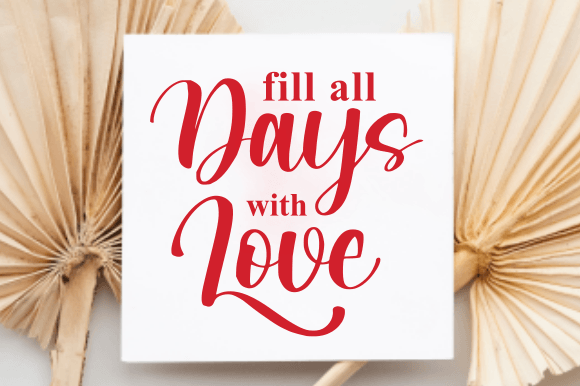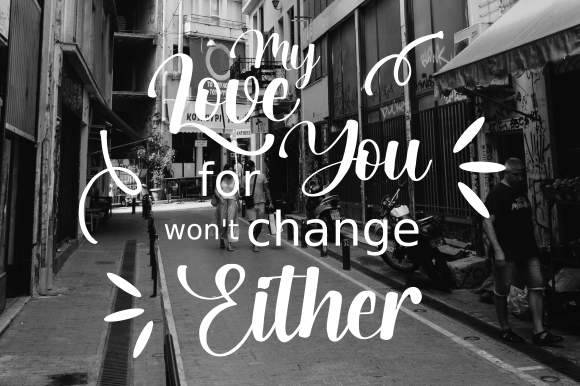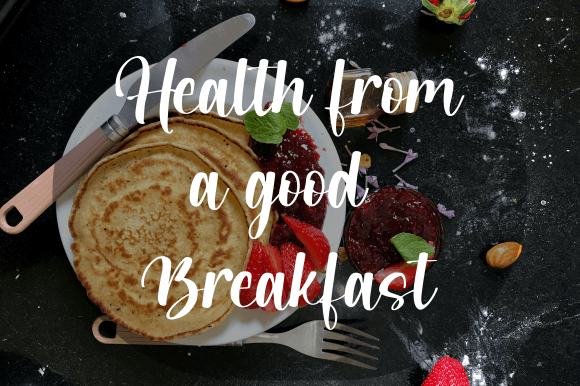
Introduction to Queen Athena Font
Queen Athena is a delicate, elegant, and flowing handwritten font.
It has beautiful and well-balanced characters and as a result, it matches a wide pool of designs .
Queen Athena Font offers exceptional quality and versatility, making it a valuable addition to your design toolkit. Whether you’re creating for personal projects or commercial use, Queen Athena Font delivers professional results.